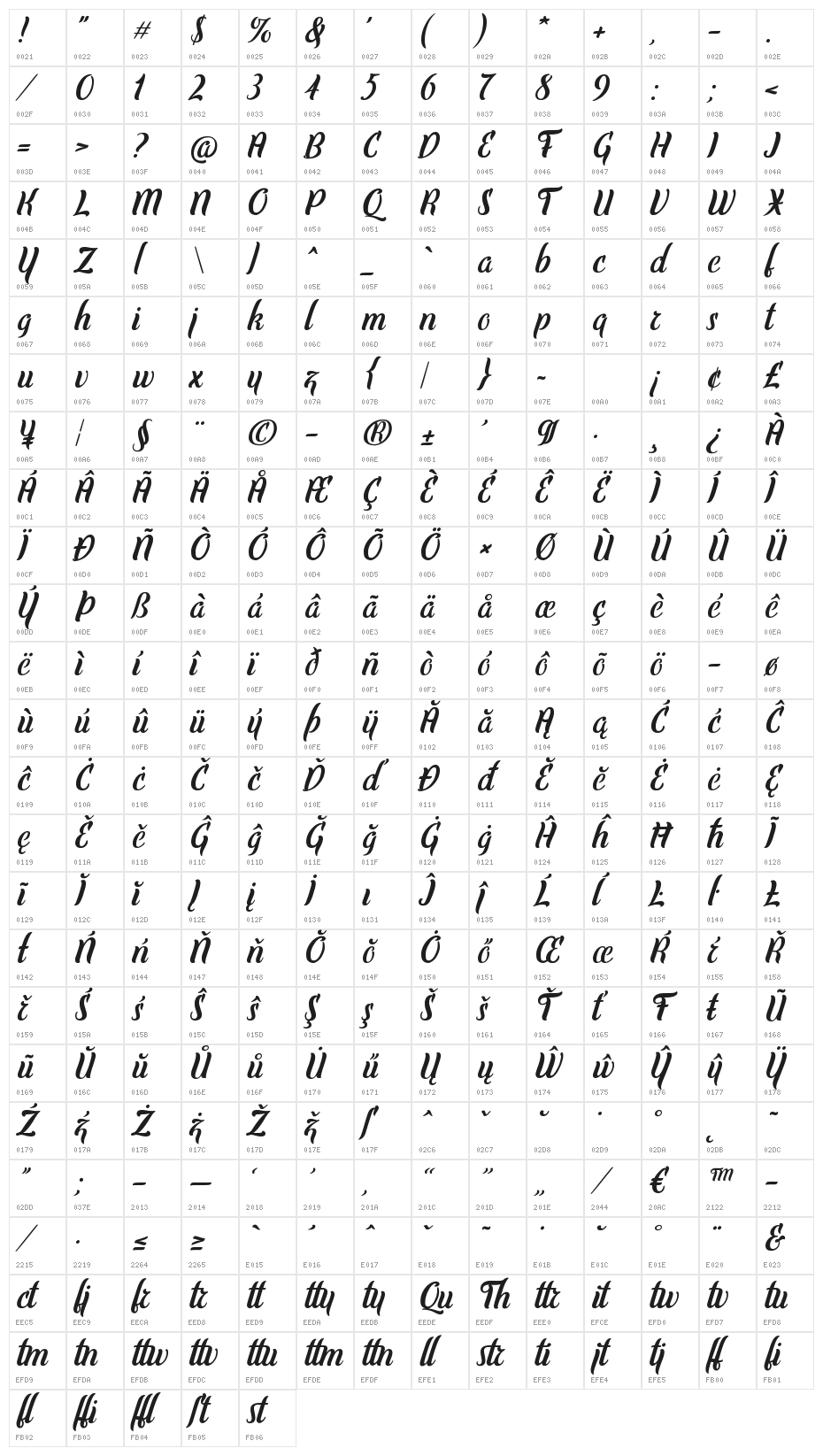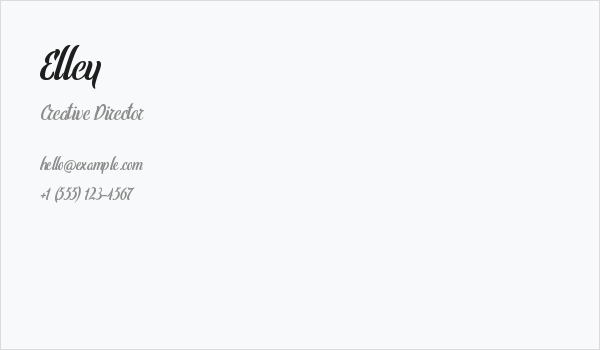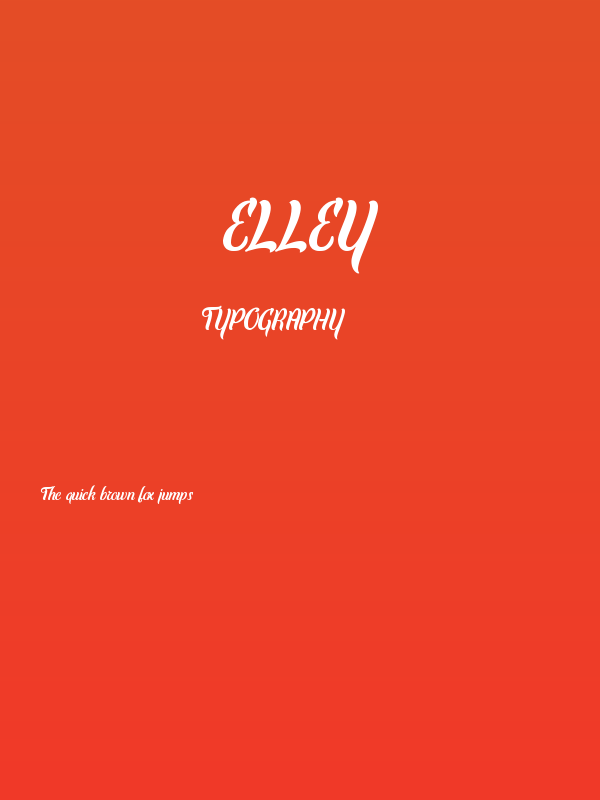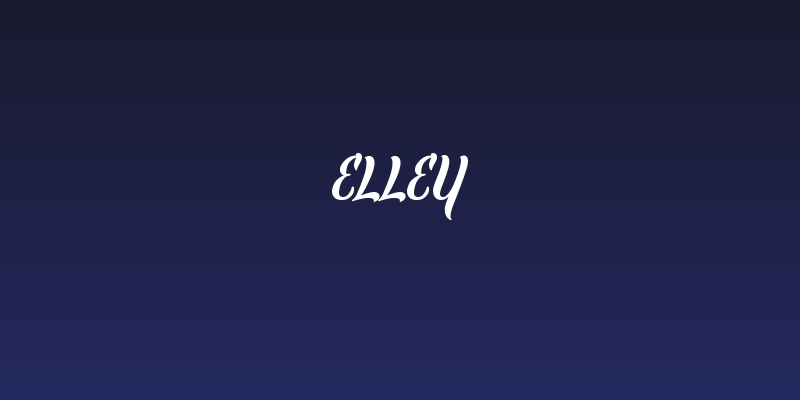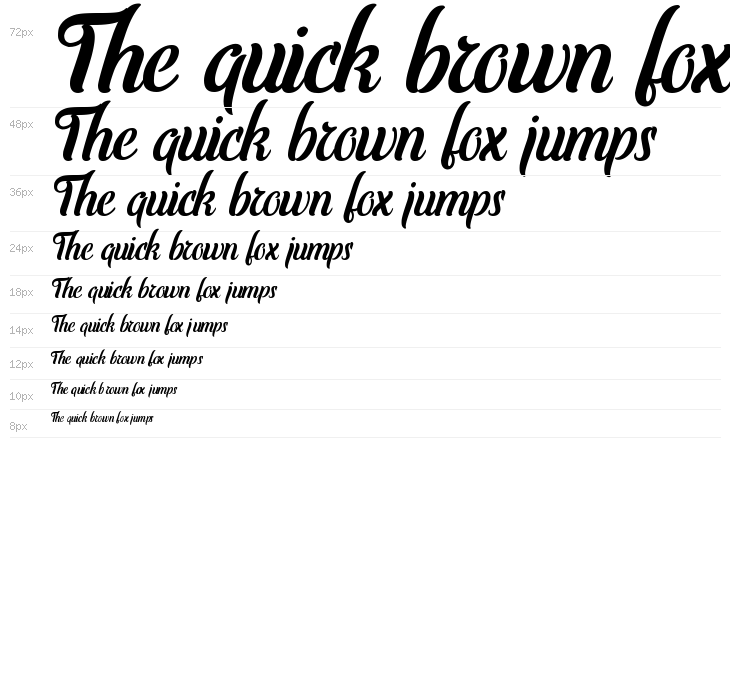
Elley Font
Elley Description
This font features a bold, flowing script style that exudes elegance and sophistication. The characters are designed with a slight slant, giving them a dynamic and lively appearance. The uppercase letters are particularly striking, with sweeping curves and flourishes that add a touch of drama. The lowercase letters maintain a consistent style, complementing the uppercase with their smooth and rounded forms. The numerals are equally stylish, with a uniform height and balanced proportions. Special characters are thoughtfully integrated, maintaining the overall aesthetic of the font. This script is ideal for projects that require a touch of class and personality.
Overall StyleElegant
Use CaseLogos, Invitations, Branding
Proposed ProjectsIdeal for wedding invitations, elegant branding, greeting cards, and high-end product packaging.